MyCeli is an app that helps the user stop performing their routine actions automatically and start acting more consciously. The app does not give any tasks but rather learns the user’s habits and then gently guides them. MyCeli is a student’s project by Anna Shpak, Maria Shevchun, and Victoria Yamschikova, curated by Oleg Paschenko. The app’s typography is executed using Loos by CSTM Fonts.
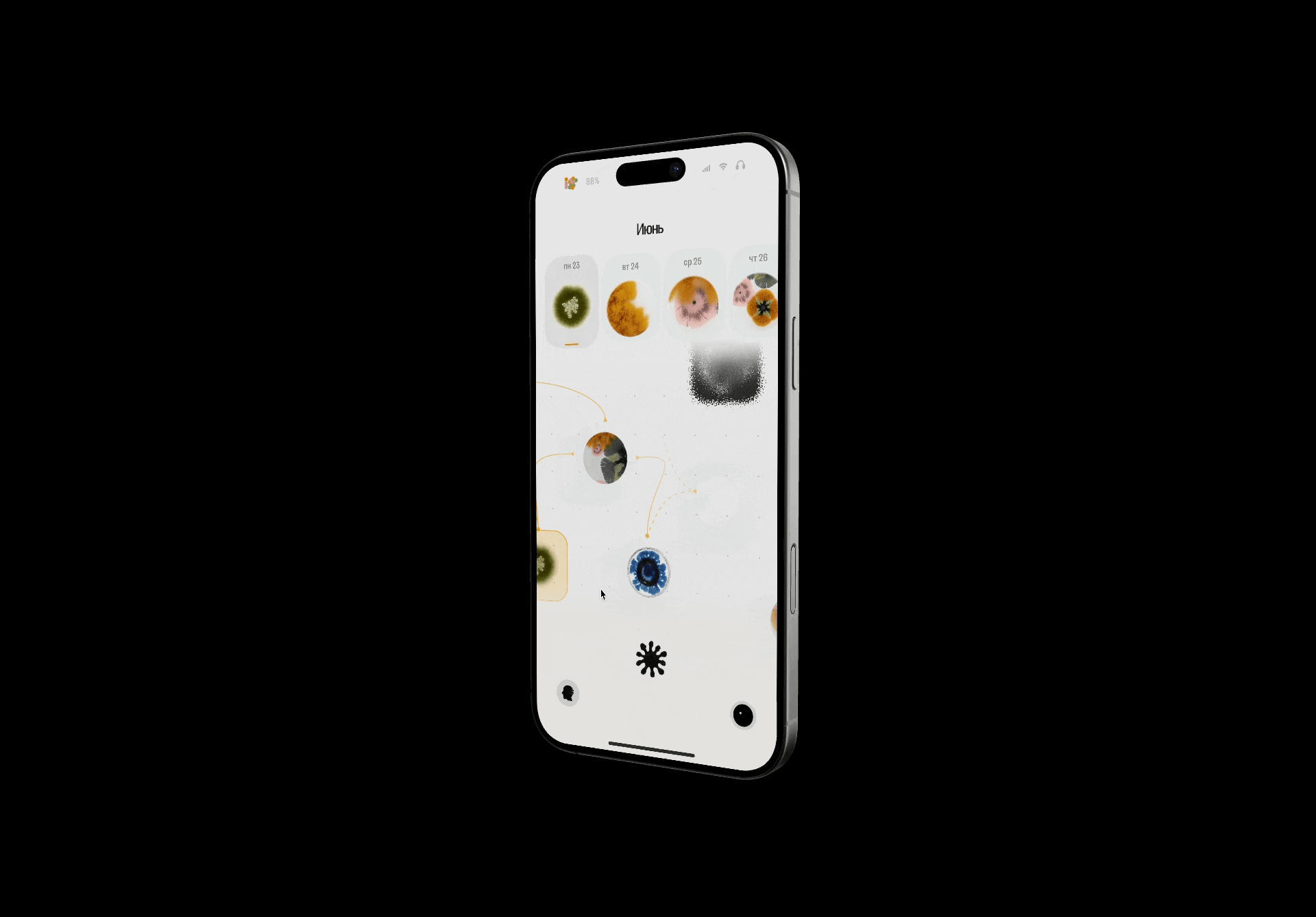
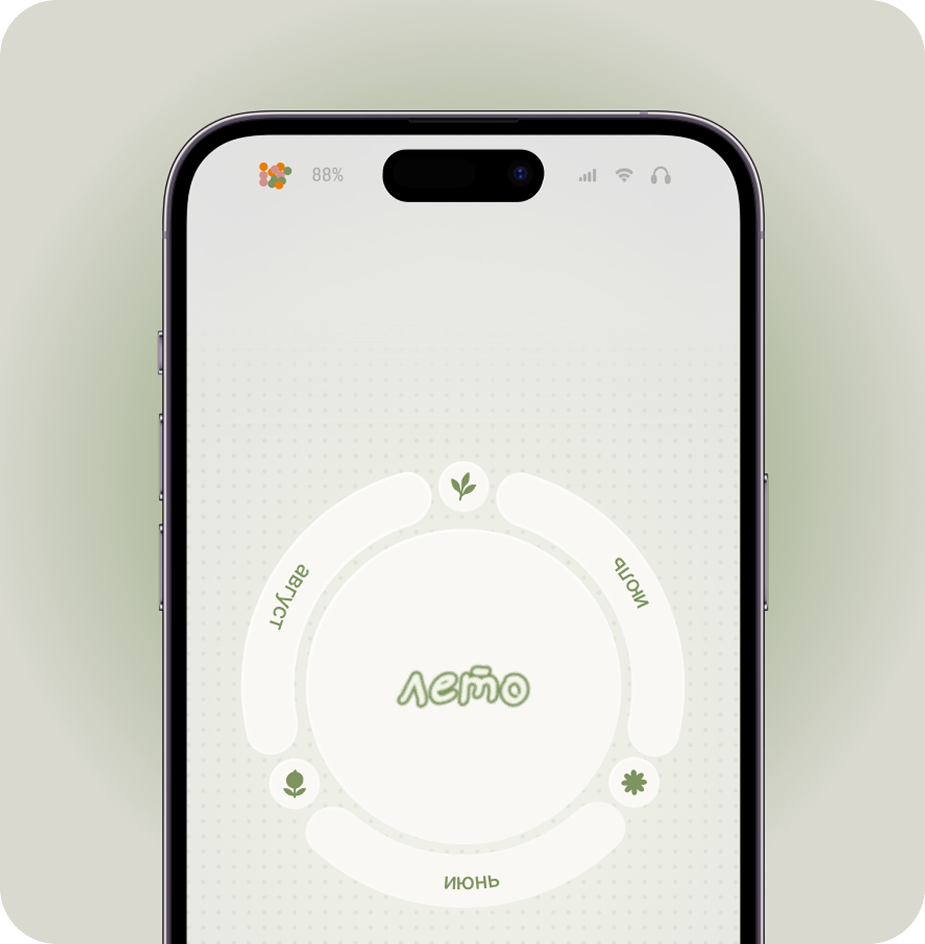
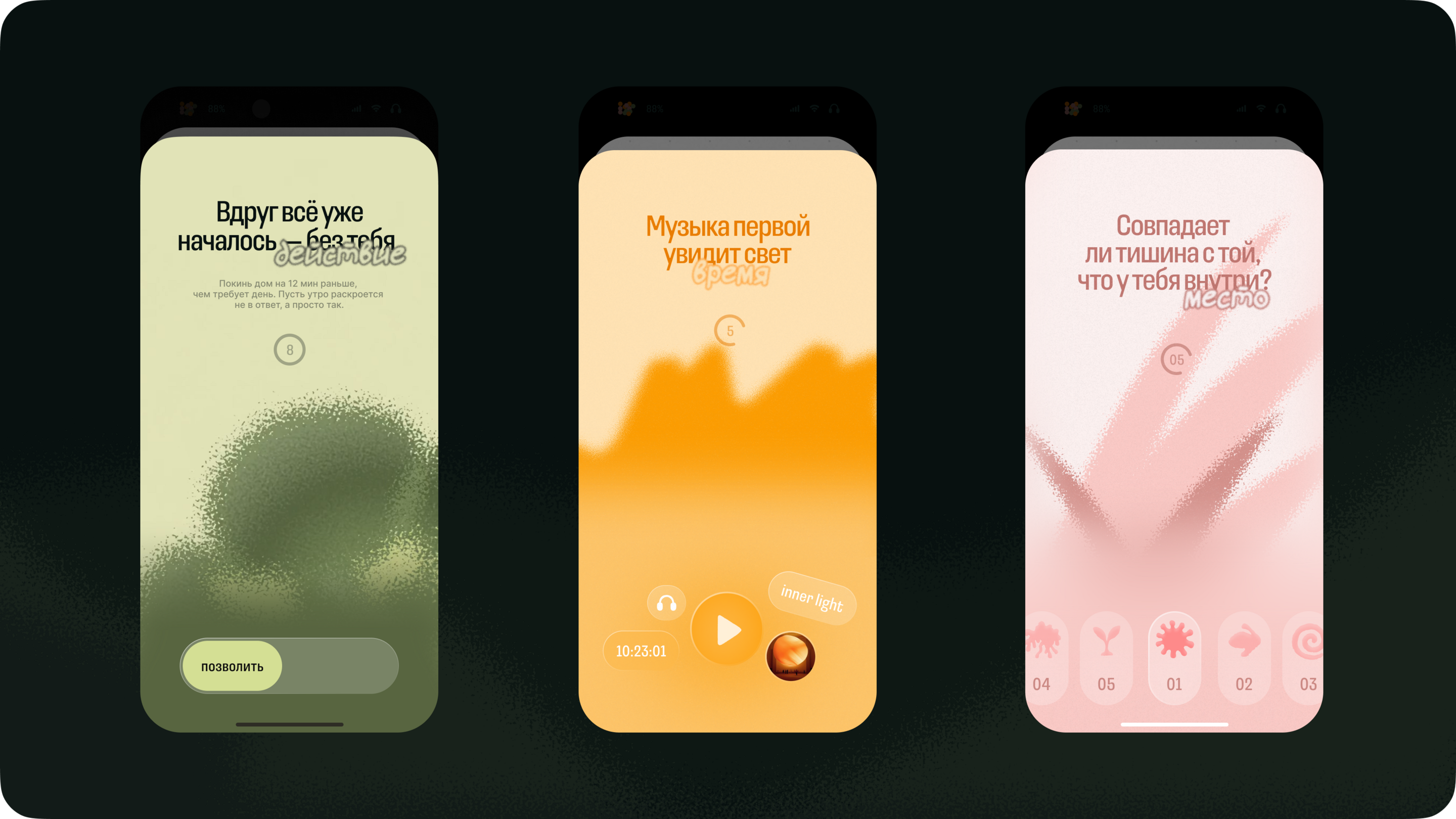
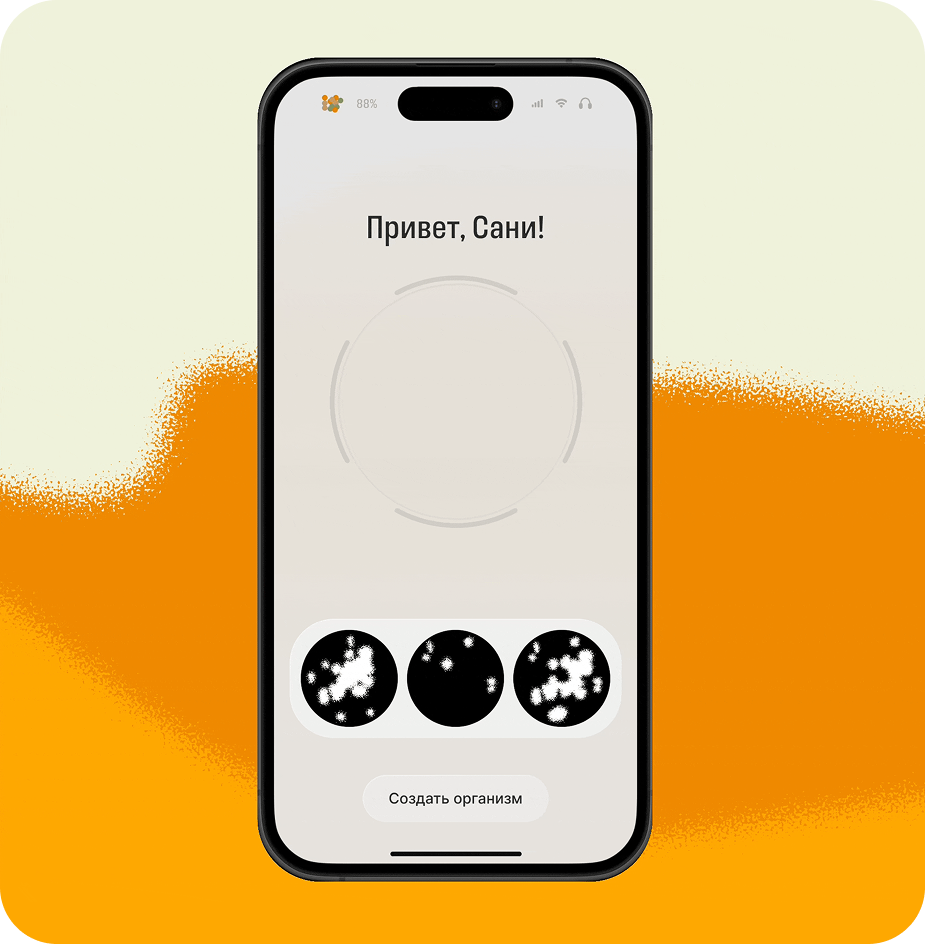
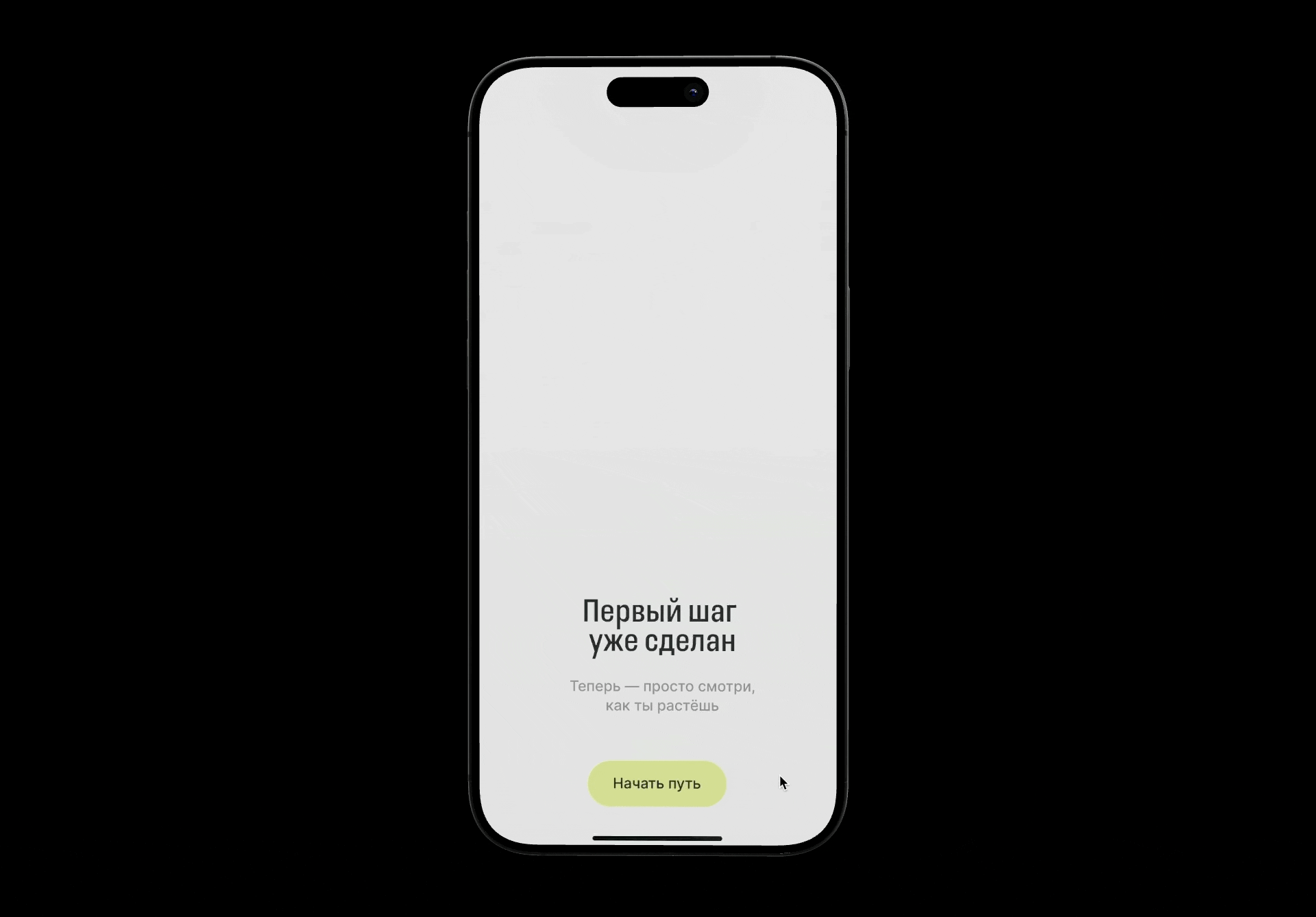
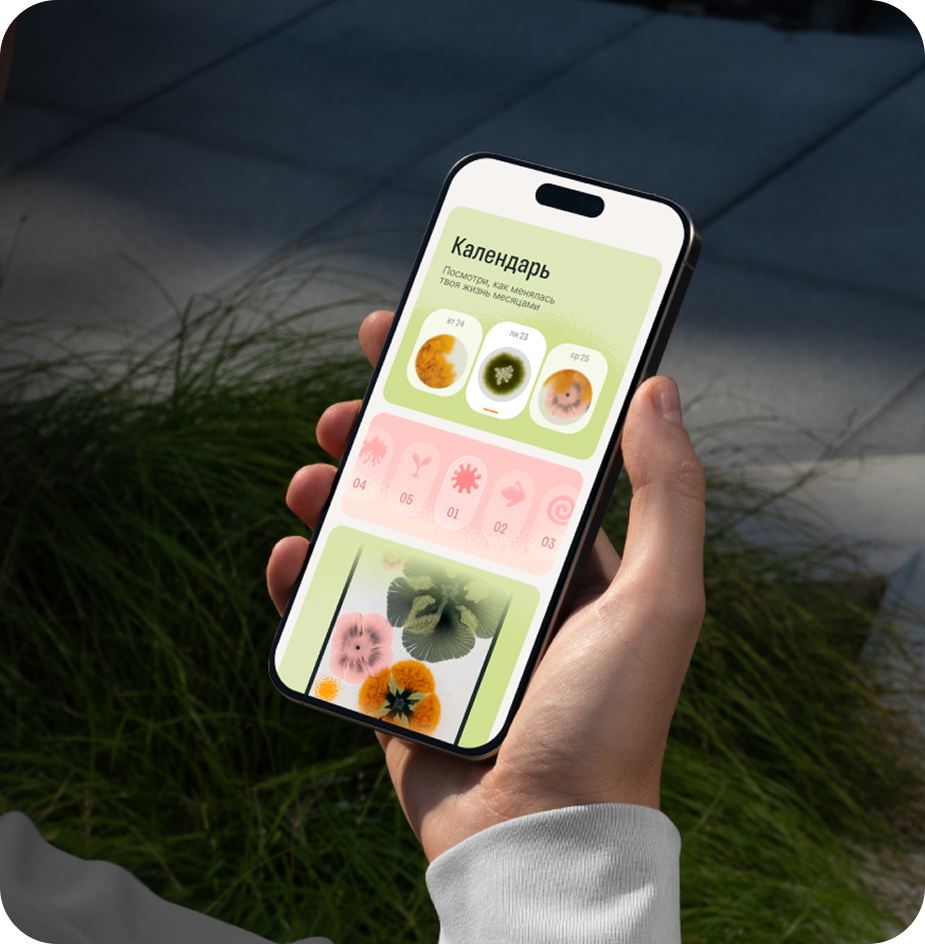
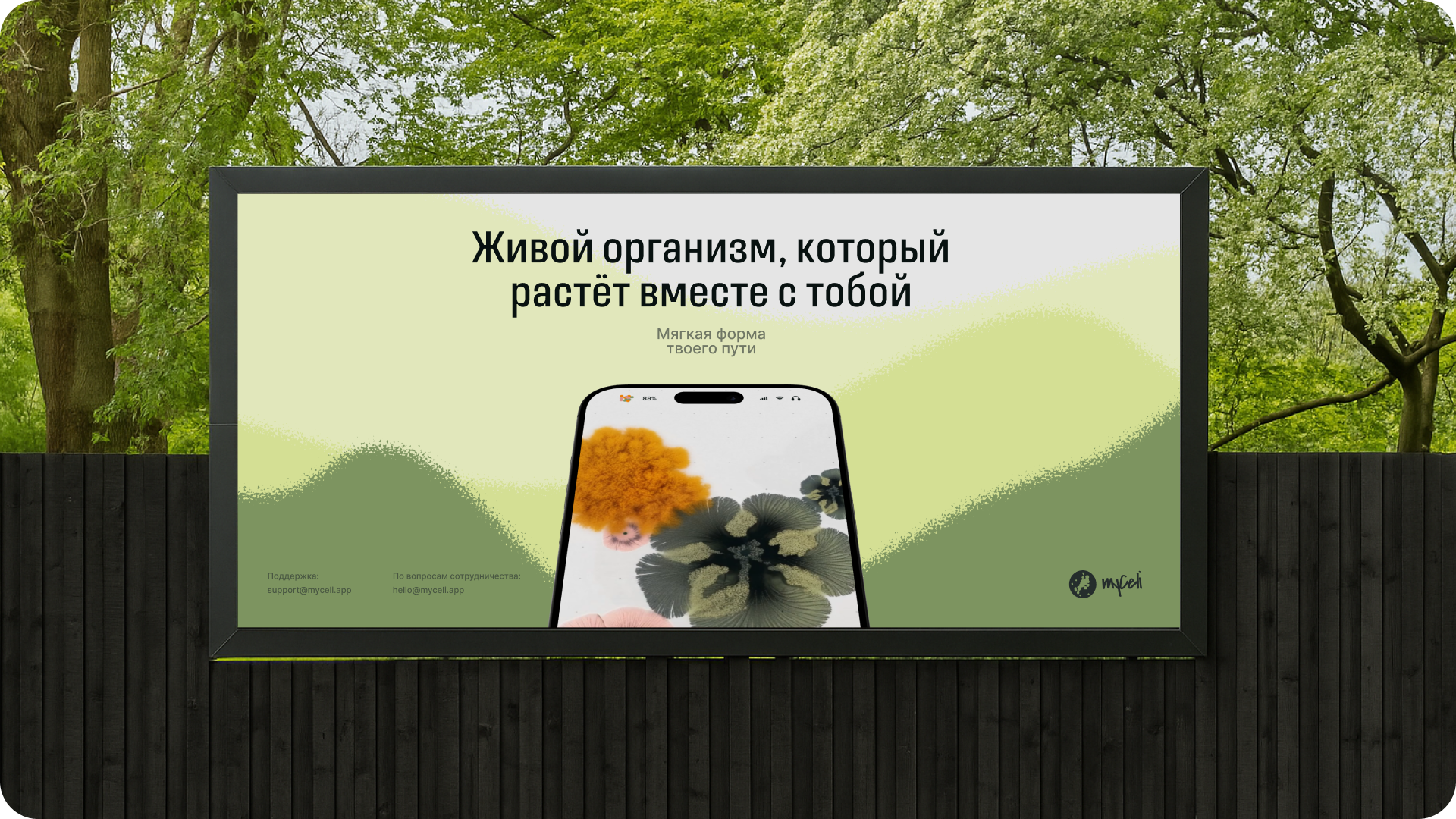
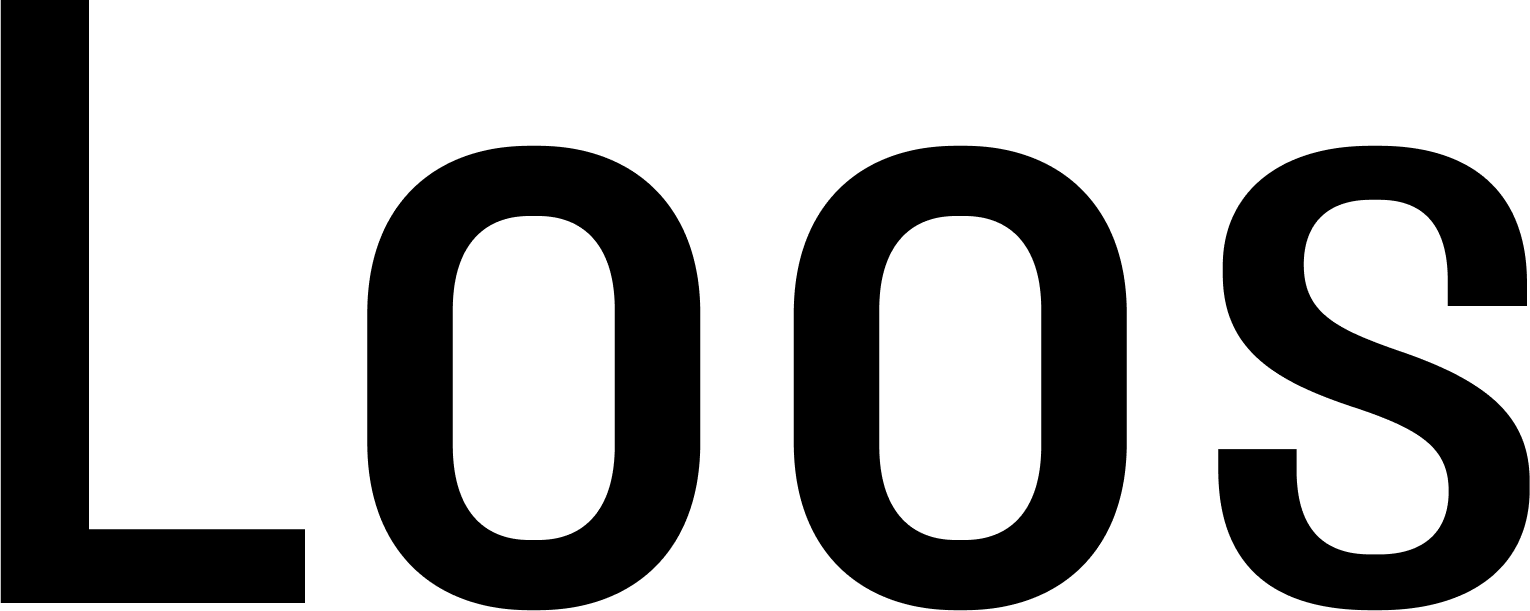
Loos is a closed-aperture sans serif with a style palette ranging from Compressed to Extended and from Thin to Black. Simple yet distinctive structures, slight stroke contrast, as well as its generous counters and sidebearings actually make the typeface way friendlier than it may look when you first see it. Beyond Latin and Cyrillic, Loos supports Georgian. The licensing is available in four options: Latin + Cyrillic, Latin + Georgian, only Georgian, or all three scripts.